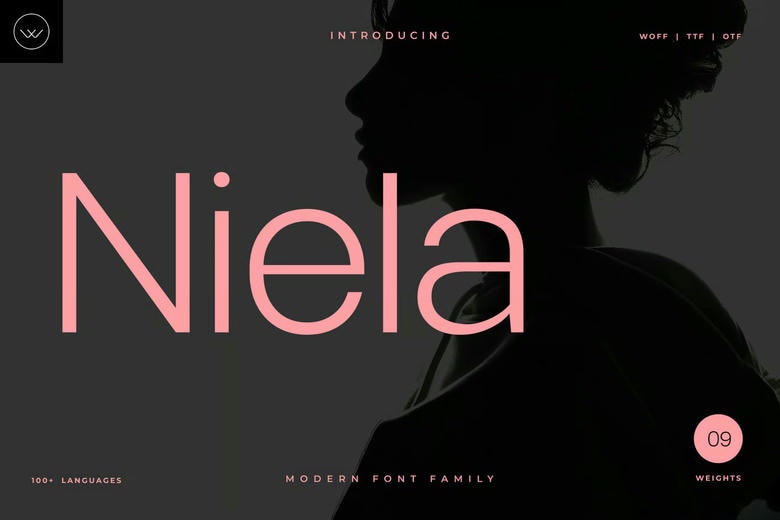
Niela Font Family
Niela Font Family is a current and casual minimal sans-serif typeface, which is designed by designers who place emphasis on the clarity, equilibrium, and a unified graphical beat. Constructed with smooth geometrical structure and fine details, Niela gives every layout a relaxed and modern outlook.
This family has 9 finely adjusted weights, starting with the light Thin, all the way up to the heavy Black, with complete liberty to establish meaningful visual hierarchy. The weights are developed in the same proportions and with high readability that makes them a strong tool in both print and electronic work.
Niela is a very good branding, logo, web interface, poster, magazine layout, product package, social media, reel, text, YouTube thumbnails and motion graphics. It can easily integrate with the modern design systems due to its simple forms and accurate curves.
Niela Sans Serif Font Family